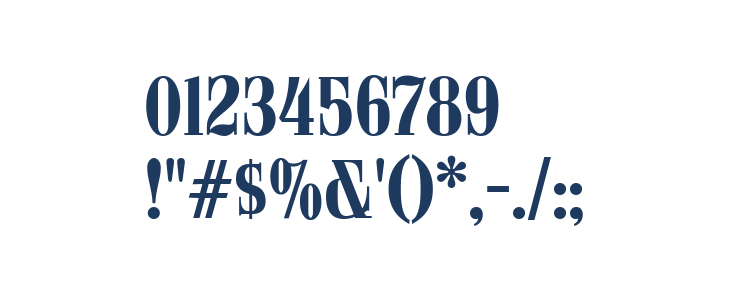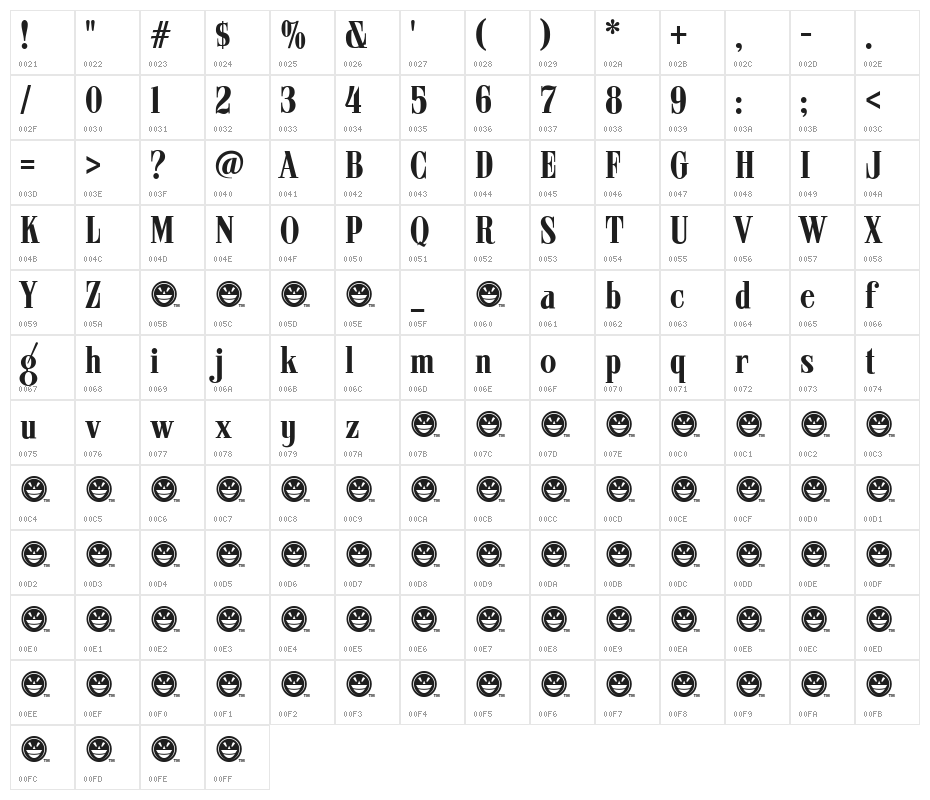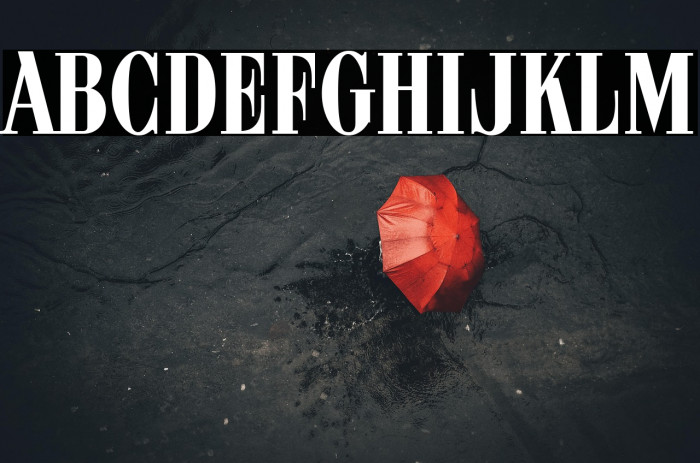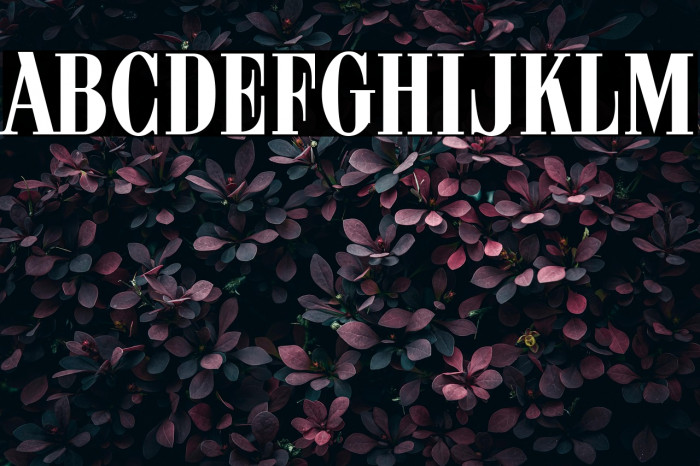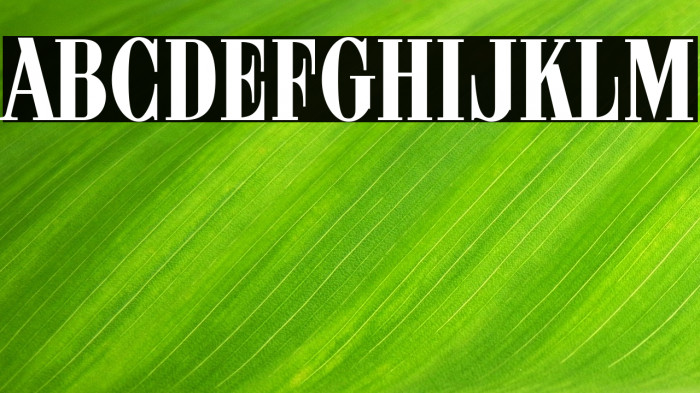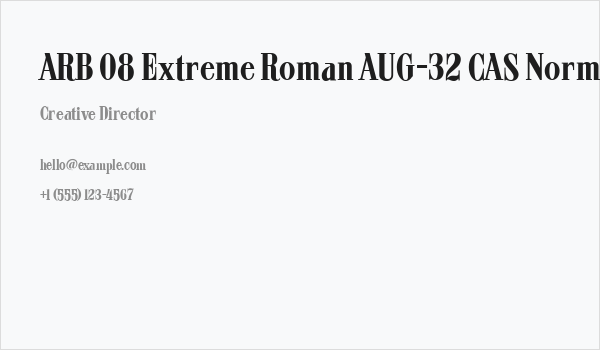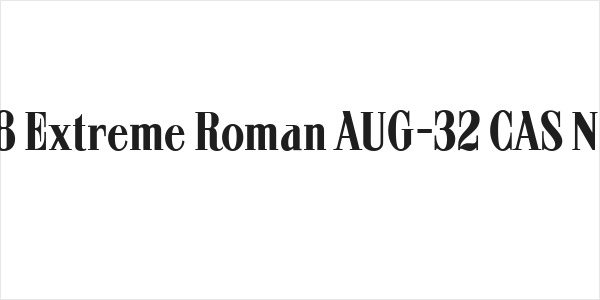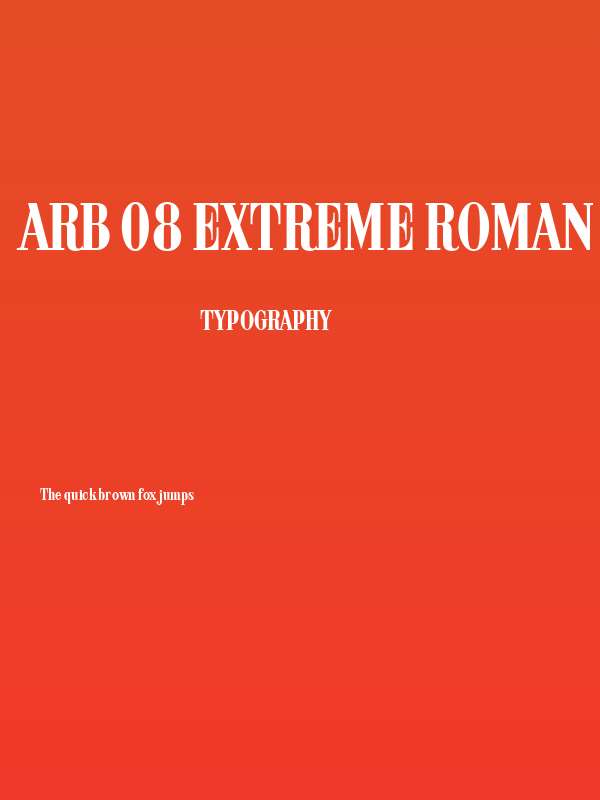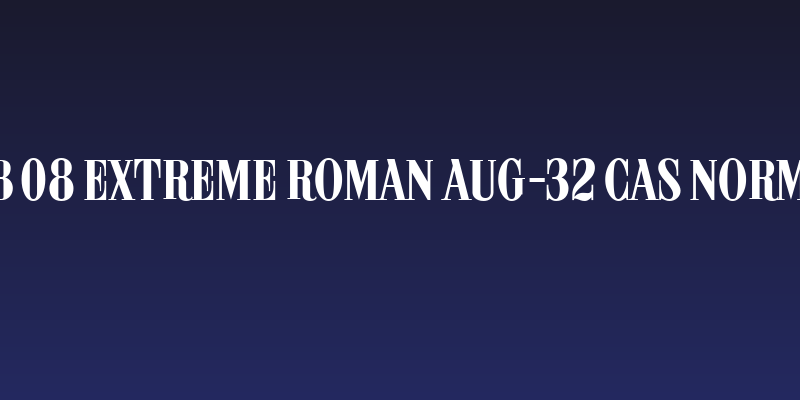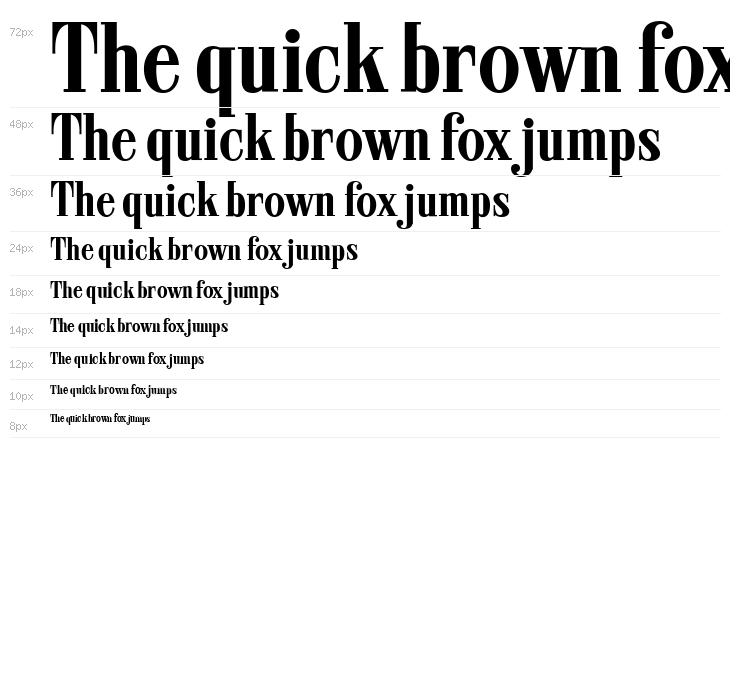
ARB 08 Extreme Roman AUG-32 CAS Normal Font
ARB 08 Extreme Roman AUG-32 CAS Normal Description
This font features a bold and striking serif design with high contrast between thick and thin strokes, giving it a dramatic and impactful appearance. The uppercase letters are tall and commanding, while the lowercase letters maintain a consistent style with slightly more rounded forms. The numerals are robust and align well with the overall aesthetic, ensuring readability and visual harmony. Special characters are designed with the same attention to detail, making them stand out while remaining cohesive with the rest of the typeface. This font's strong presence makes it ideal for attention-grabbing headlines and titles.